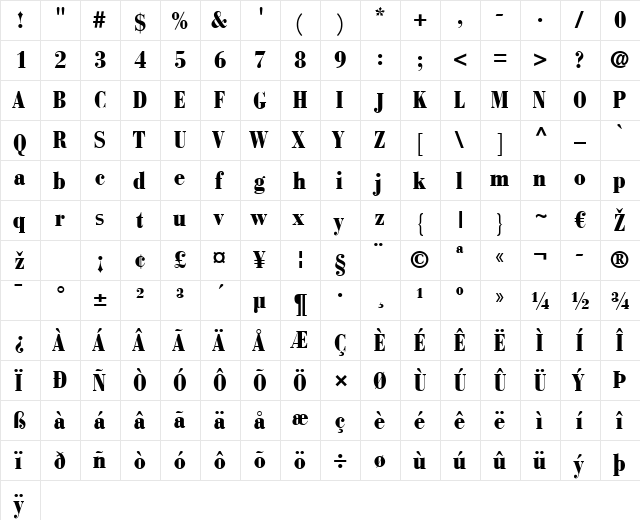
BauerBodoni LT BoldCond Bold
Design Context for BauerBodoni LT BoldCond Typeface
BauerBodoni LT BoldCond is a composed and adaptable typeface that performs quietly and consistently across a wide range of design contexts. Its bold stroke weight gives it real presence on the page. Its narrow stance lets it pack a punch even in space-constrained designs.